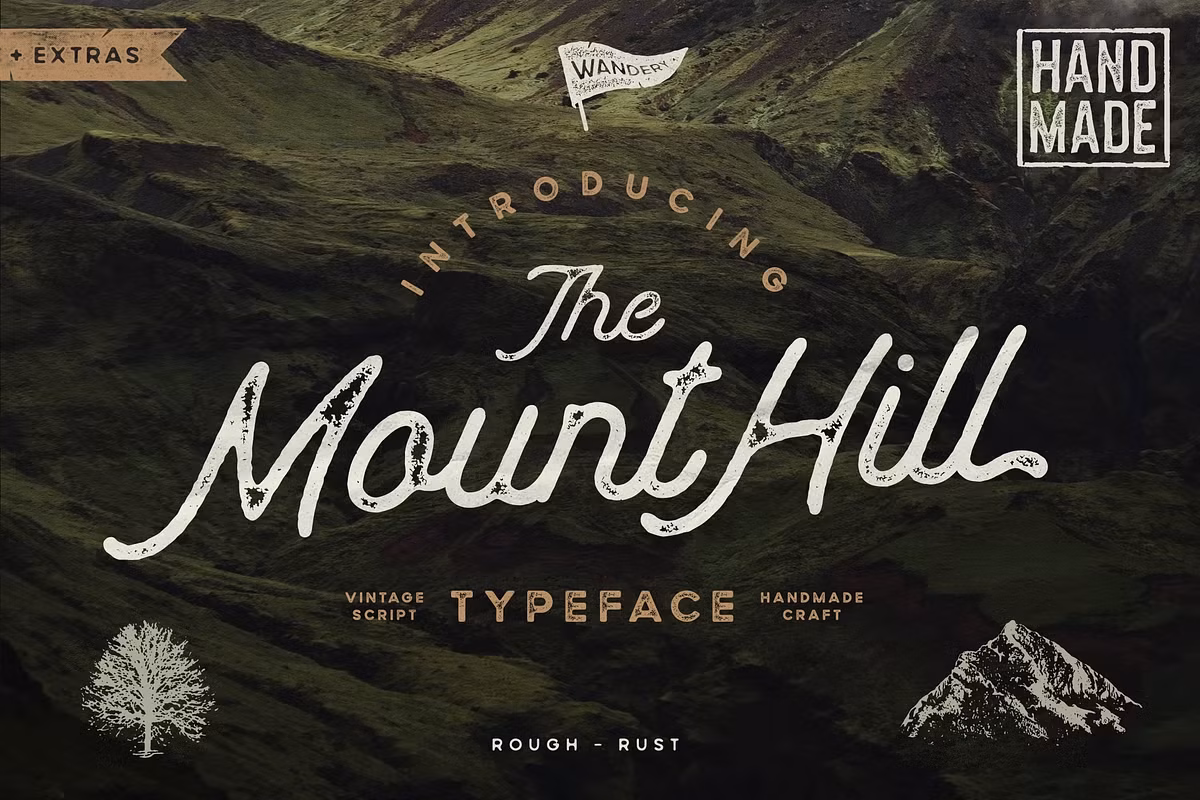
MountHill Vintage Script + Extras Free Download is a beautiful and elegant font that brings a touch of nostalgia and sophistication to your designs. Featuring a vintage script style with additional decorative elements, this font is perfect for creating logos, branding, invitations, and other creative projects. The extras included offer additional flourishes and graphic elements that will enhance your design with unique touches. Whether you’re working on a retro logo, a wedding invitation, or a classic brand identity, MountHill Vintage Script + Extras Free Download gives you the flexibility to explore its beauty in personal projects before purchasing a commercial license. Add charm, elegance, and vintage appeal to your designs with this versatile font package.